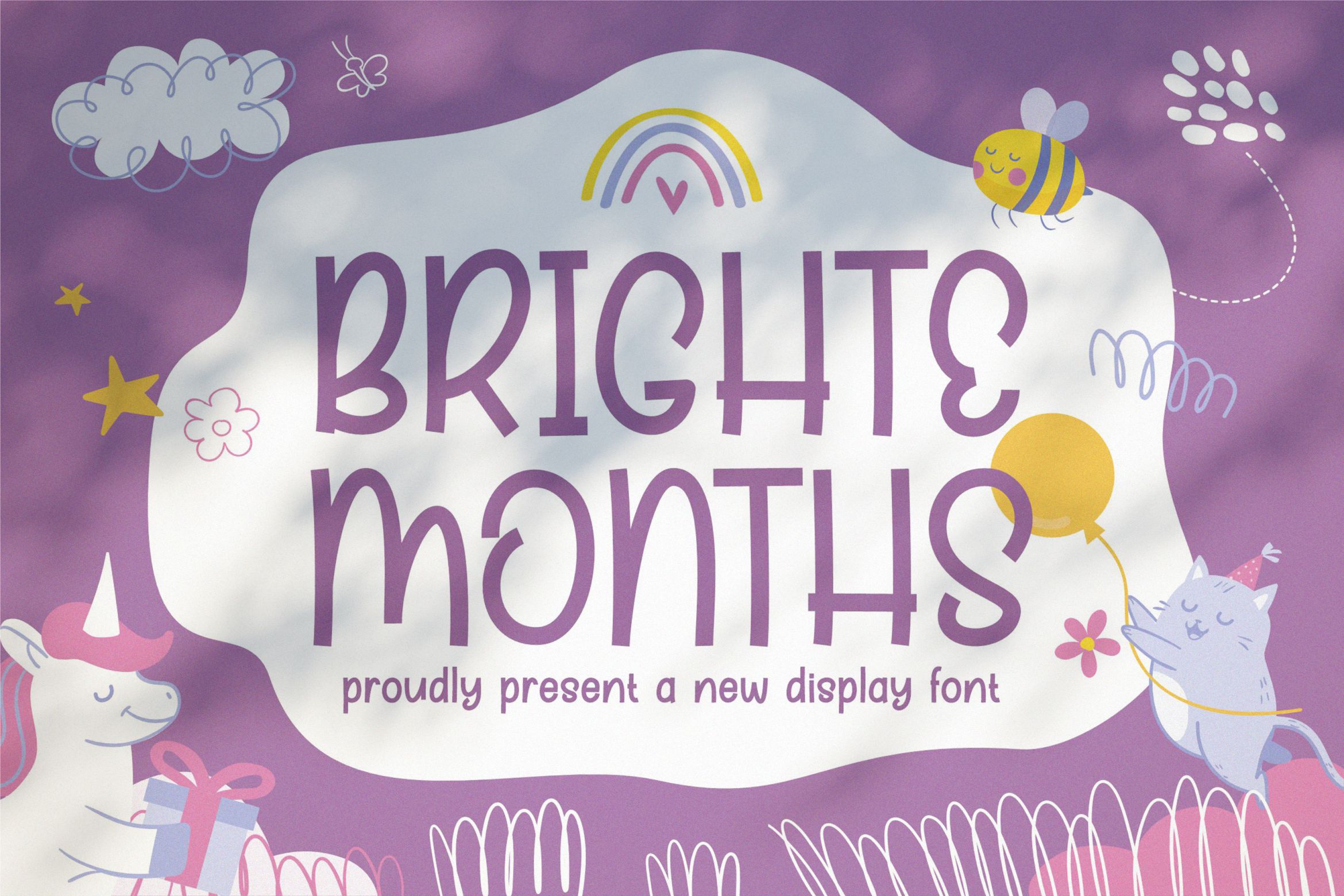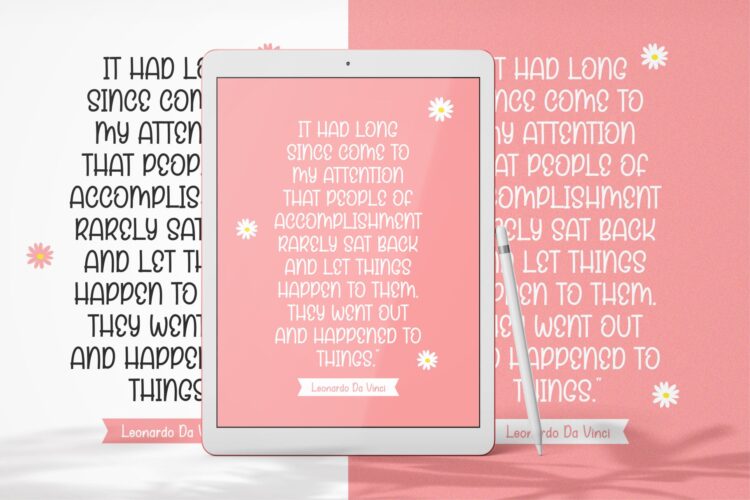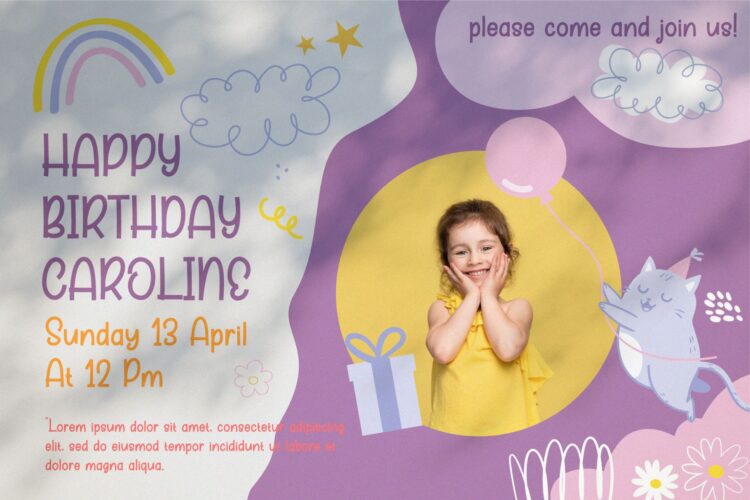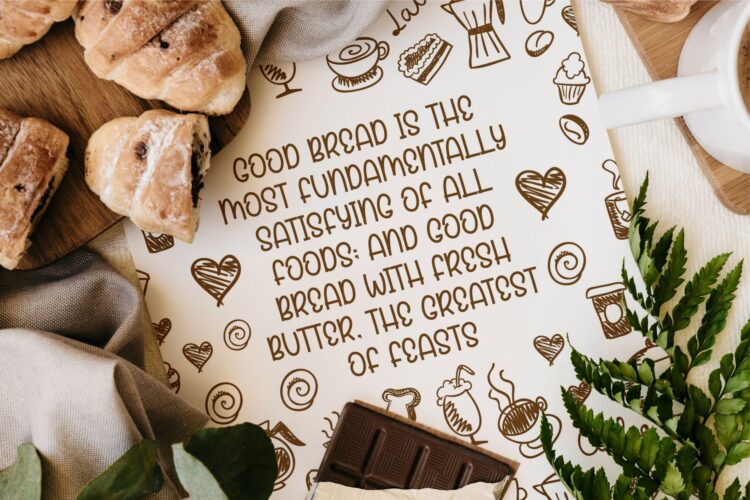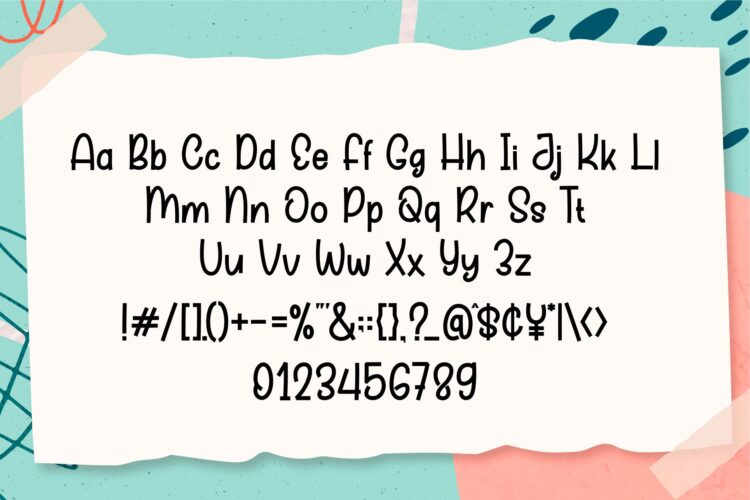
Bright Months
Introducing Bright Months The New cute and unique Display Font is a modern, trendy, bouncy and cute display font. It has a unique character with wood theme. It is perfect to be combined with invitation card designs, company logos, movie titles, movie names, business cards, book titles, brand names and various other designs.
Bright Months || Cute Unique Font